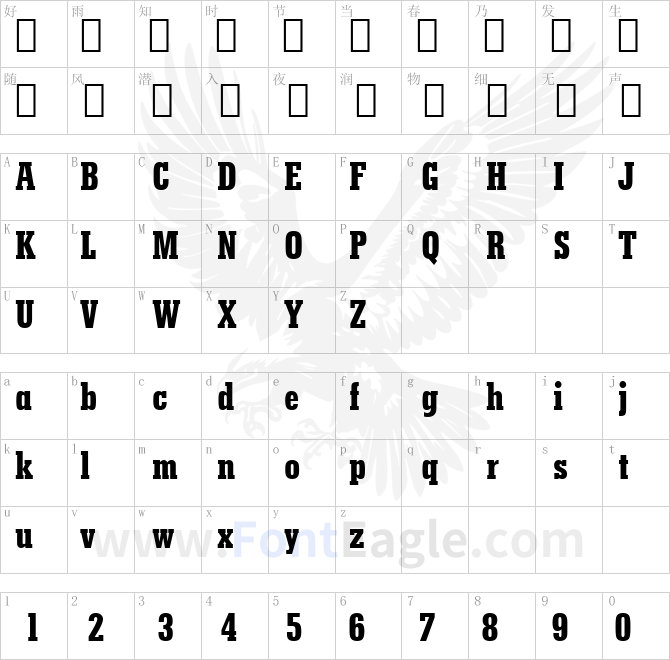
- Font name:Stymie XBdCn BT
- Font Subfamily:Extra Bold
- Font Subfamily ID:Stymie Extra Bold Condensed, Geometric Slabserif 711
- Font Full Name:Stymie Extra Bold Condensed BT